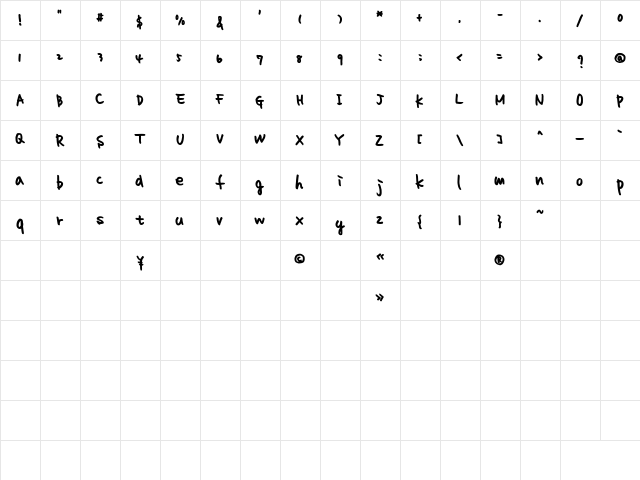
homework normal Regular Font Preview
homework normal Regular
homework normal Regular Font Details
| Foundry | COLORFUL TYPHOON |
| Designer | Futaba |
Design Context for homework normal Typeface
homework normal is a composed and adaptable typeface that performs quietly and consistently across a wide range of design contexts.